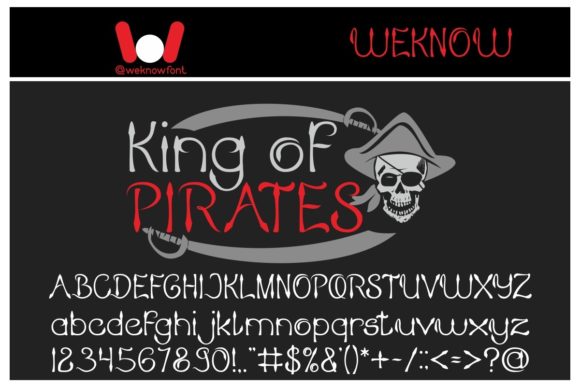
About King of Pirates Font
King of Pirates is a fancy and unique handwritten font that looks so impressive and gothic. It would make an excellent addition to your fonts library, as it has the ability to enhance every creation!